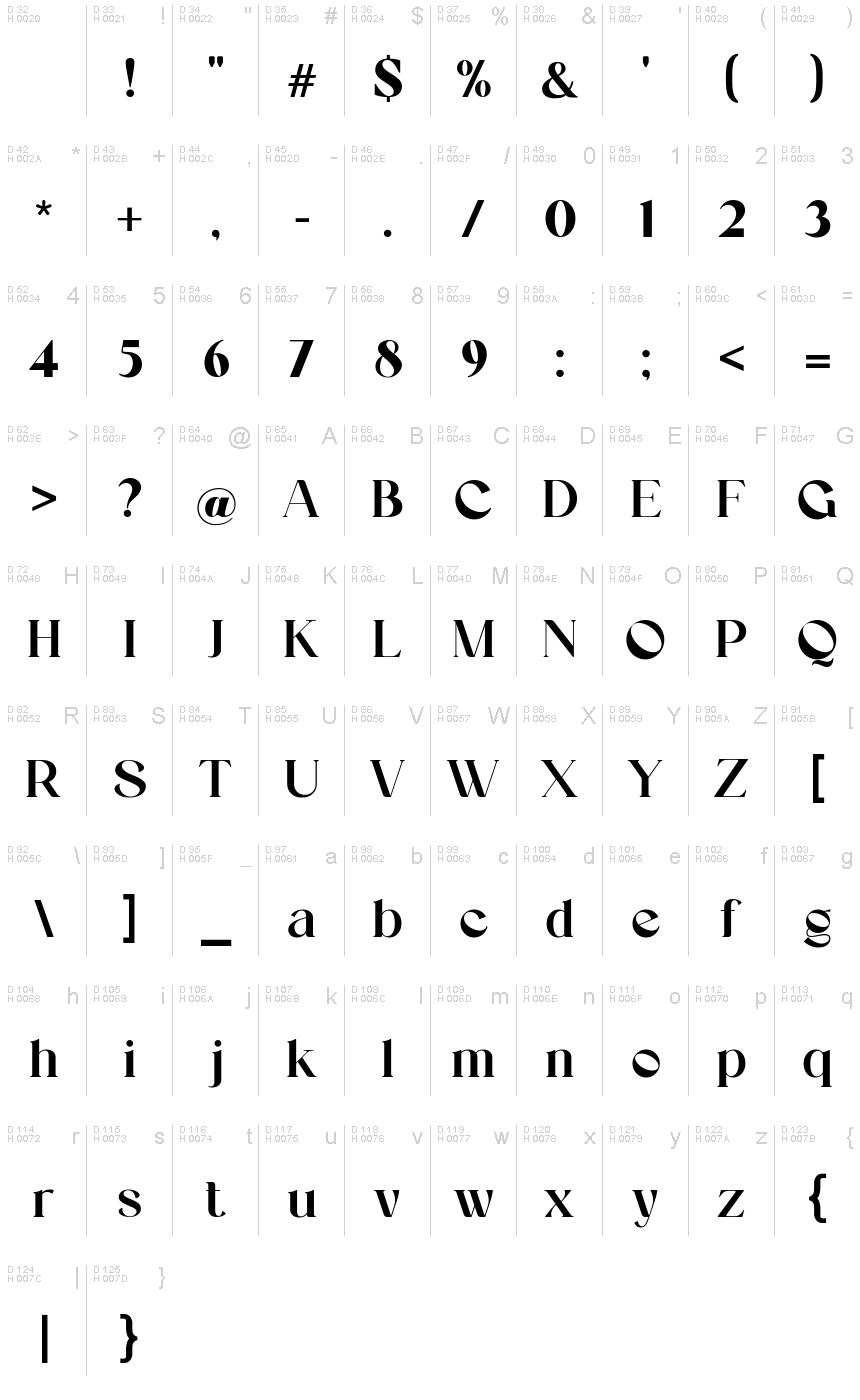
Vindigater
Vindigater, a captivating serif font created by UI Creative, exudes a refined and sophisticated elegance. Its striking letterforms evoke a sense of timelessness, with sharp serifs and a balanced, harmonious rhythm that commands attention. The font's versatile nature allows it to seamlessly transition between formal and informal settings, making it a versatile choice for a wide range of design applications.
Vindigater's distinctive character shines through in its subtle yet impactful details, such as the subtle flared terminals and the graceful curves that lend a touch of sophistication to any text. Its well-proportioned architecture and exceptional legibility make it an ideal choice for editorial design, branding, and high-end typographic applications where a refined and elegant aesthetic is desired.